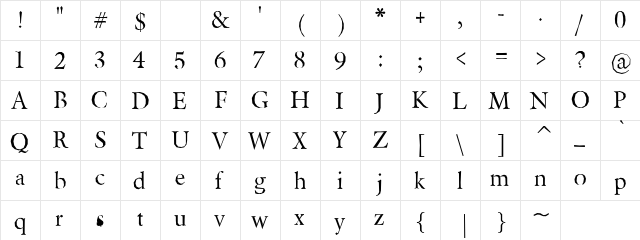
Neny Flasma Regular
Design Context for Neny Flasma Typeface
Neny Flasma offers clean, dependable letterforms without strong stylistic allegiance, making it a practical choice for designers who need flexibility.